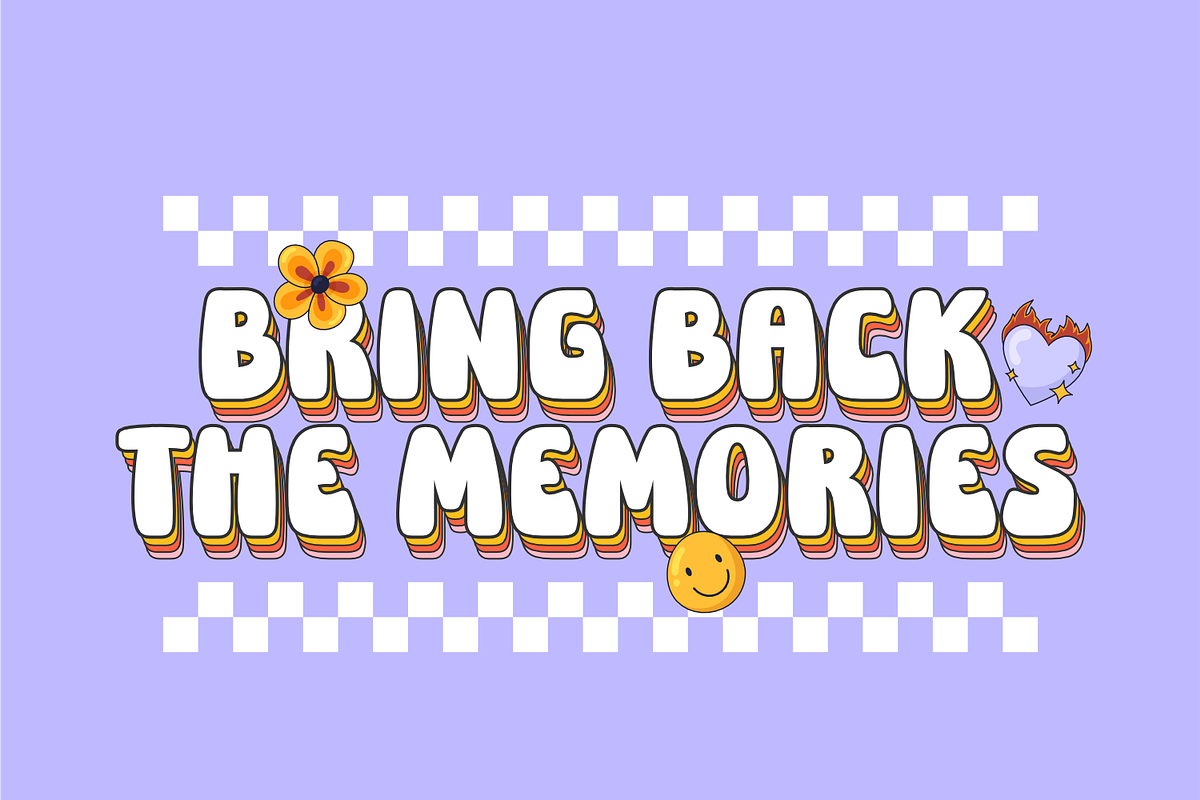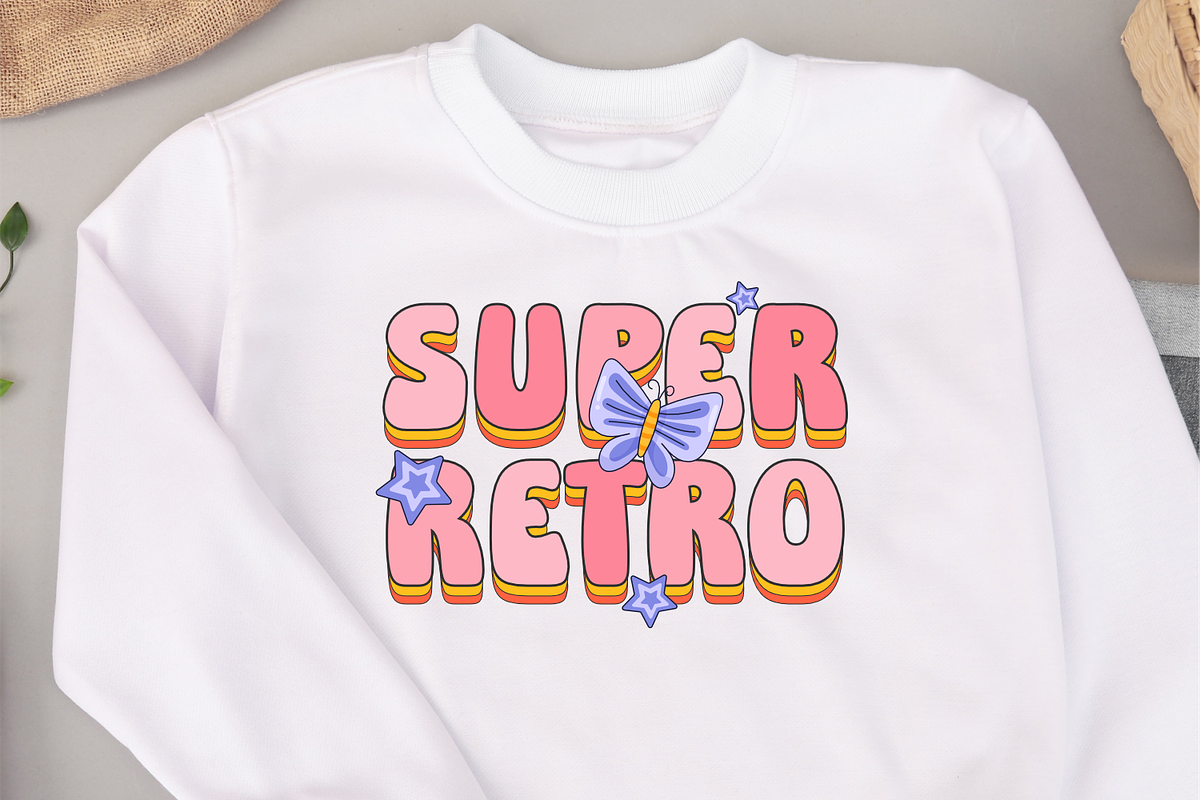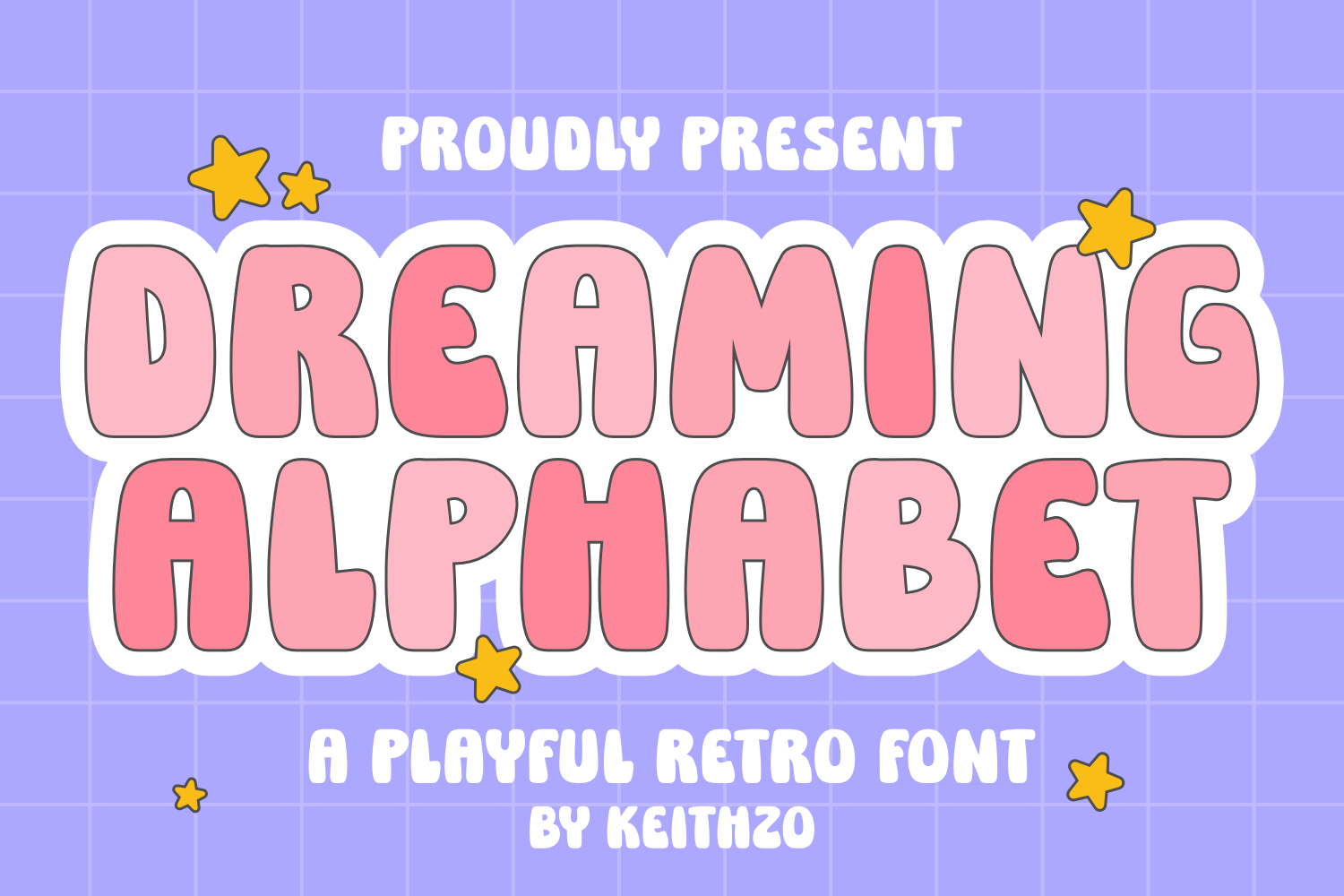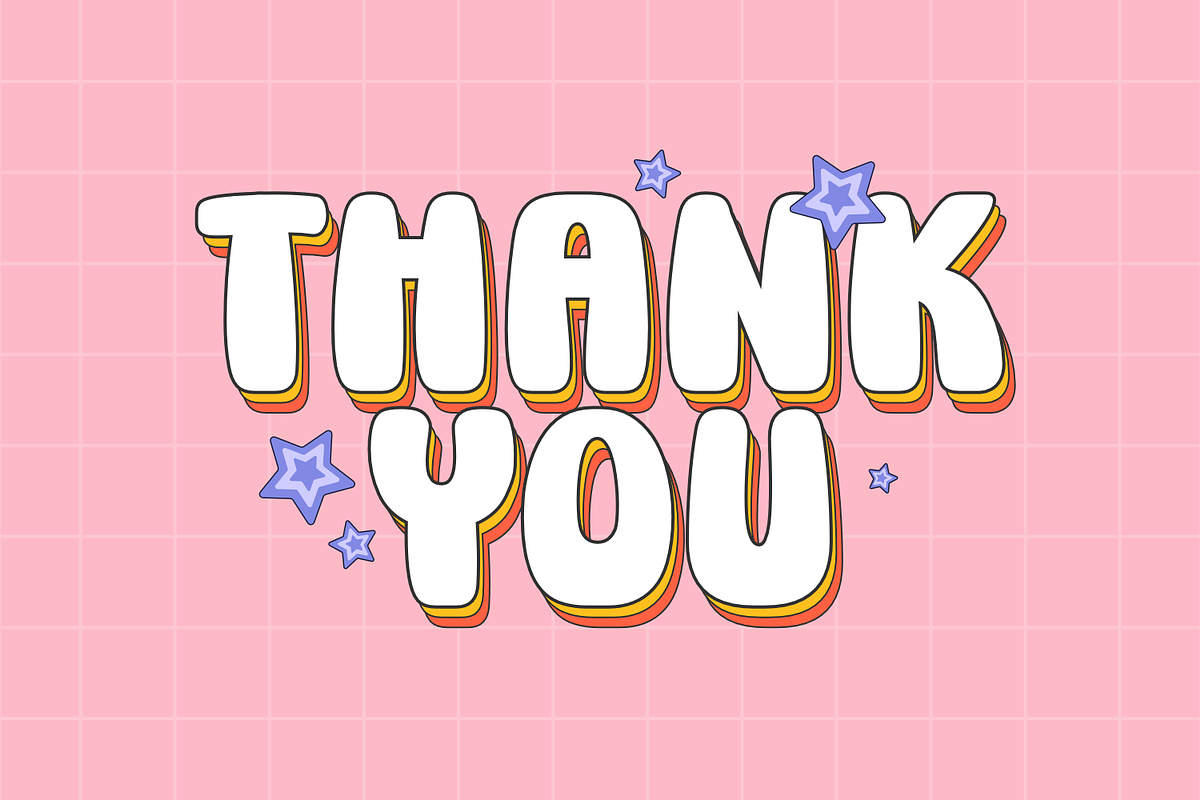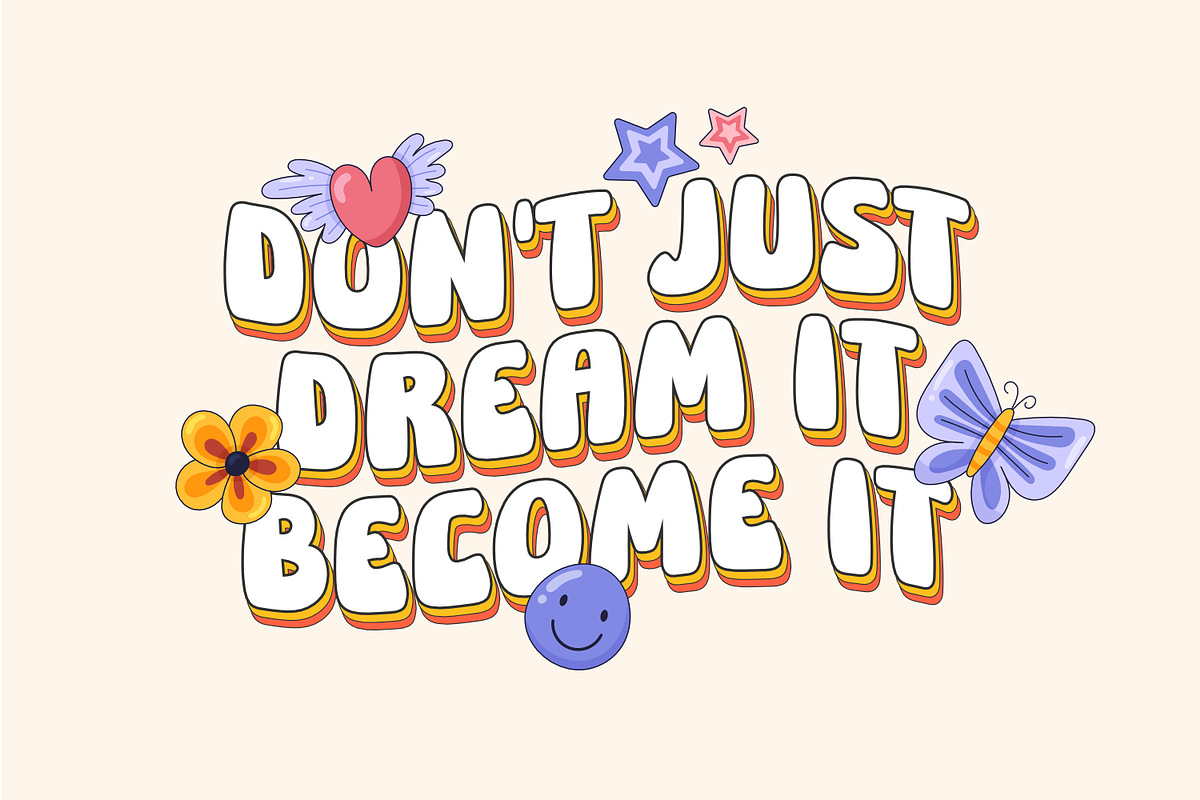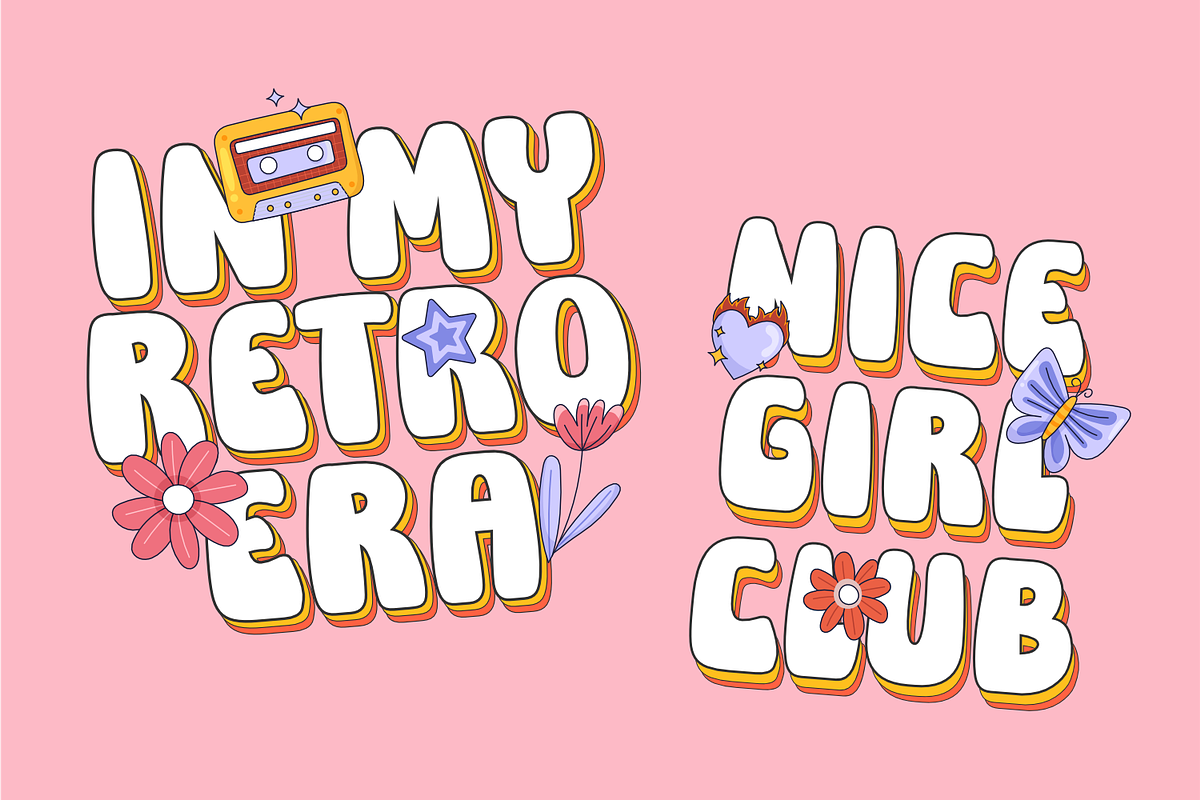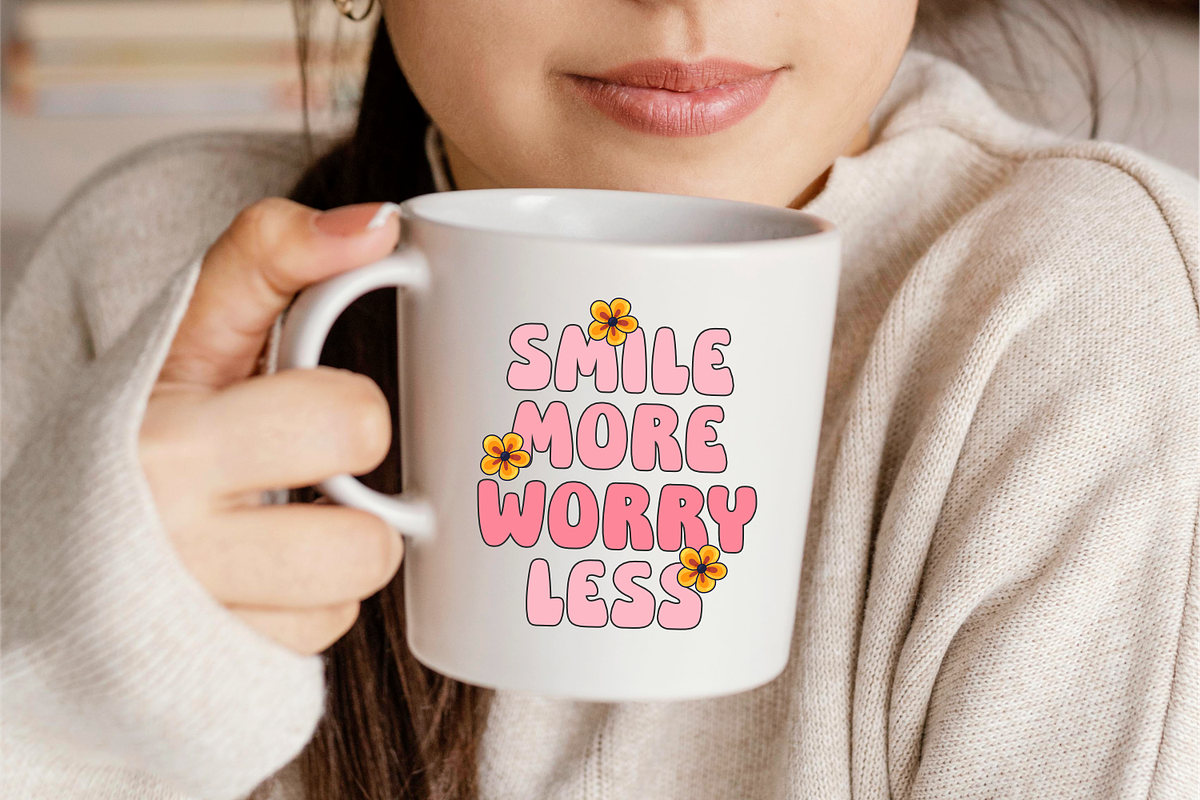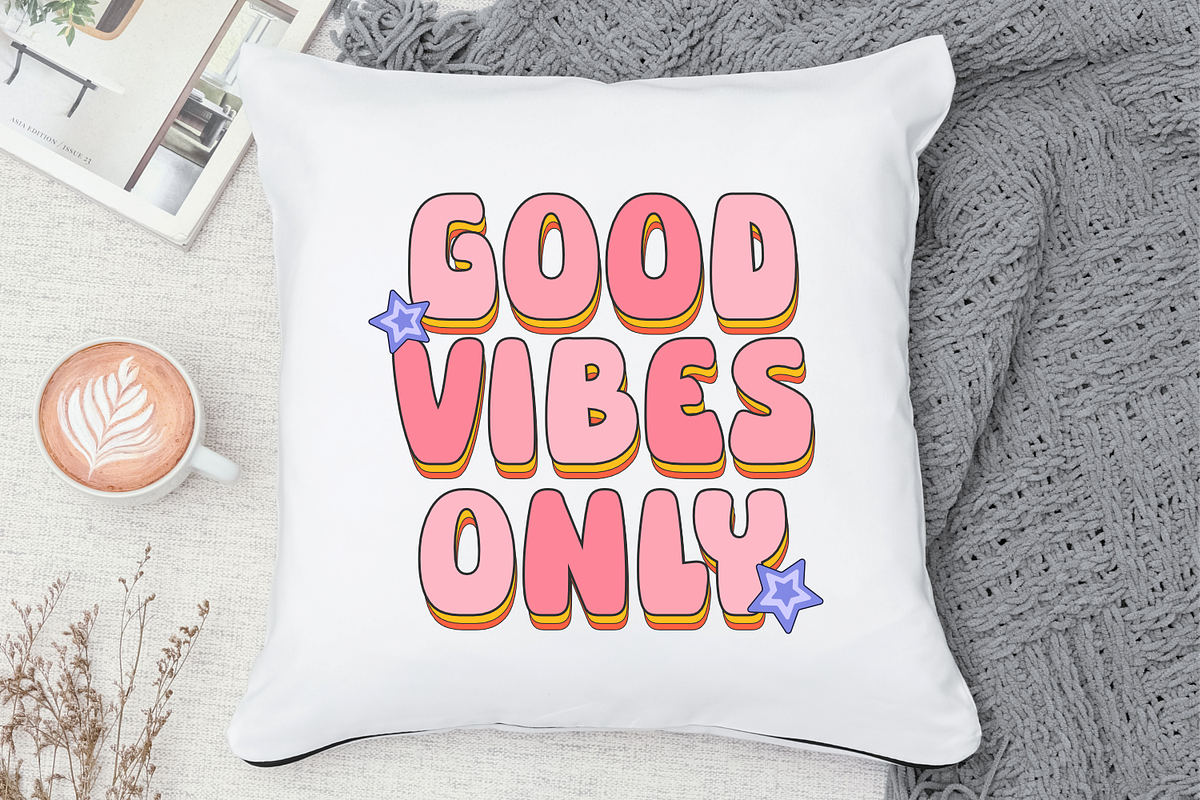
Dreaming Alphabet -Retro Groovy Font
Dreaming Alphabet is a retro-inspired display font that exudes a hippie and groovy vibe. Its whimsical letterforms are reminiscent of the flower power era and the psychedelic movement. The thick and thin strokes of the font are uneven, creating an organic and handcrafted feel. Dreaming Alphabet is perfect for designs that want to bring a playful and carefree spirit to their projects.